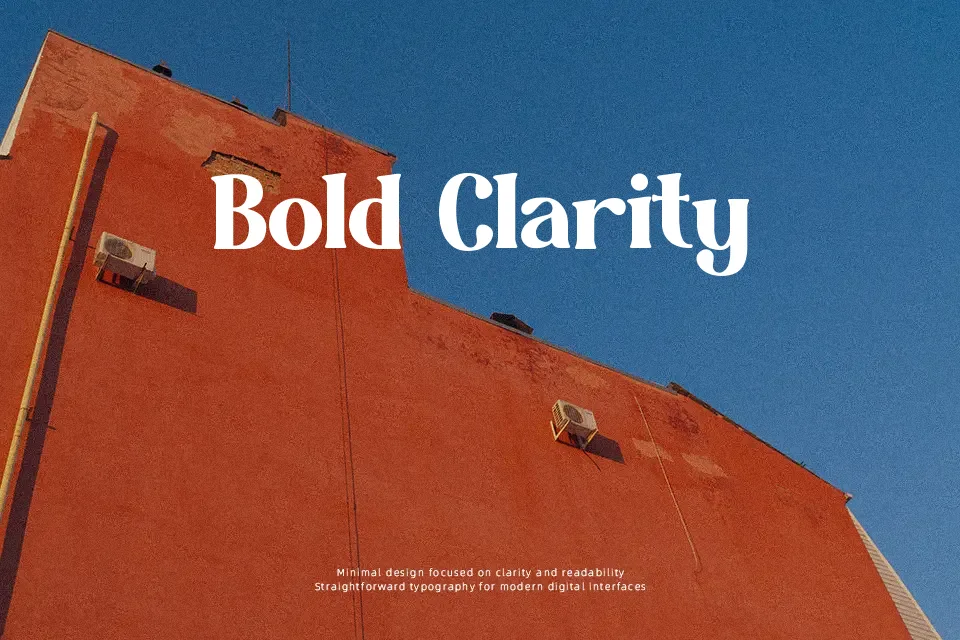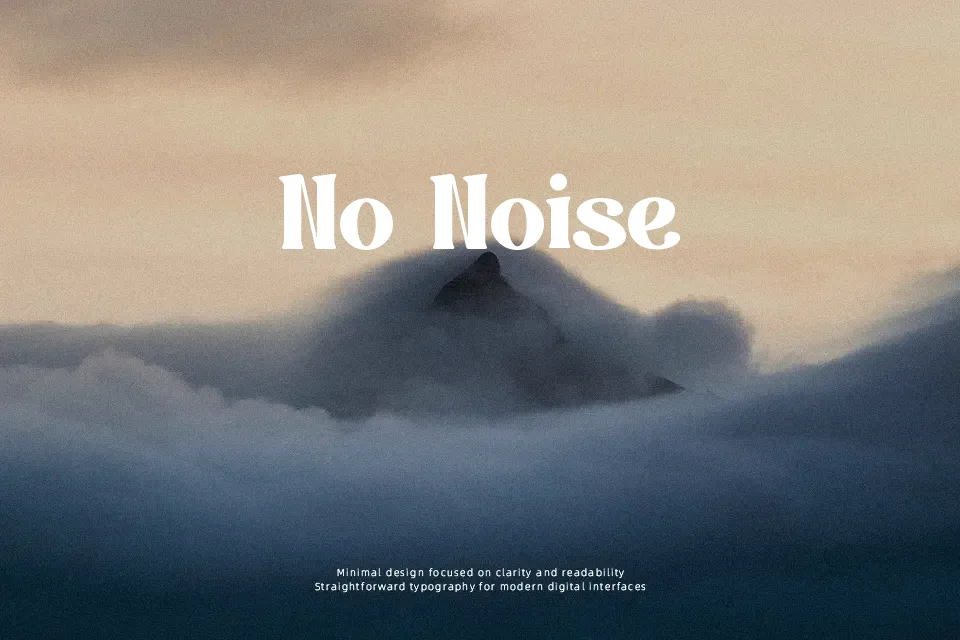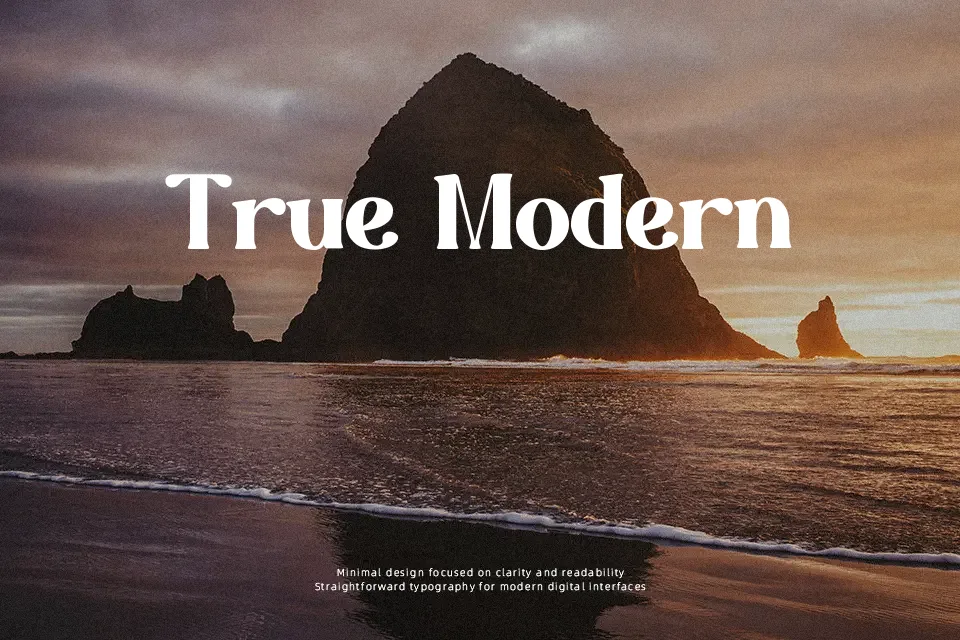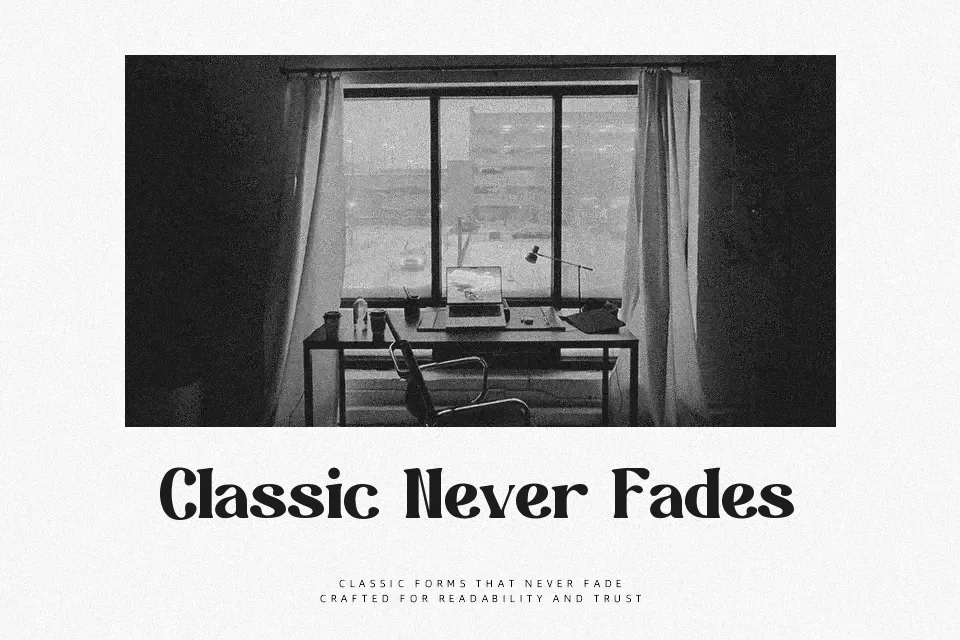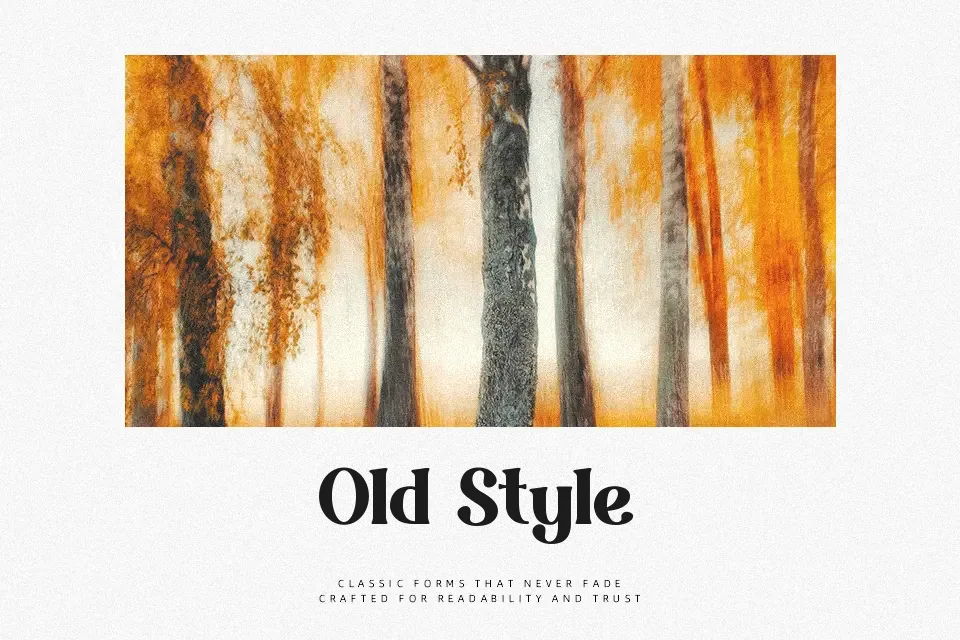
Sunflare Font
Sunflare Font opens with expressive flared serifs, generous curves, and pronounced stroke contrast that instantly evoke classic twentieth-century display typography. The letterforms feature tight character spacing and balanced proportions designed specifically to command attention in large-format compositions. While uppercase characters exhibit strong visual weight and distinct retro rhythm, the dense structure and intricate terminal shapes make extended body reading challenging. This typeface excels in headline arrangements, vintage product packaging, and editorial cover art where individual glyph personality matters most. However, dense paragraphs and diminutive captions should be avoided because compressed spacing reduces legibility at smaller text scales.
Best For: retro festival posters, vintage product packaging, apparel graphics, magazine cover headlines
Not Ideal For: continuous body text, mobile UI interface labels, technical documentation, dense editorial paragraphs
Perfect for branding, headline, and logo, with a creative and decorative style.